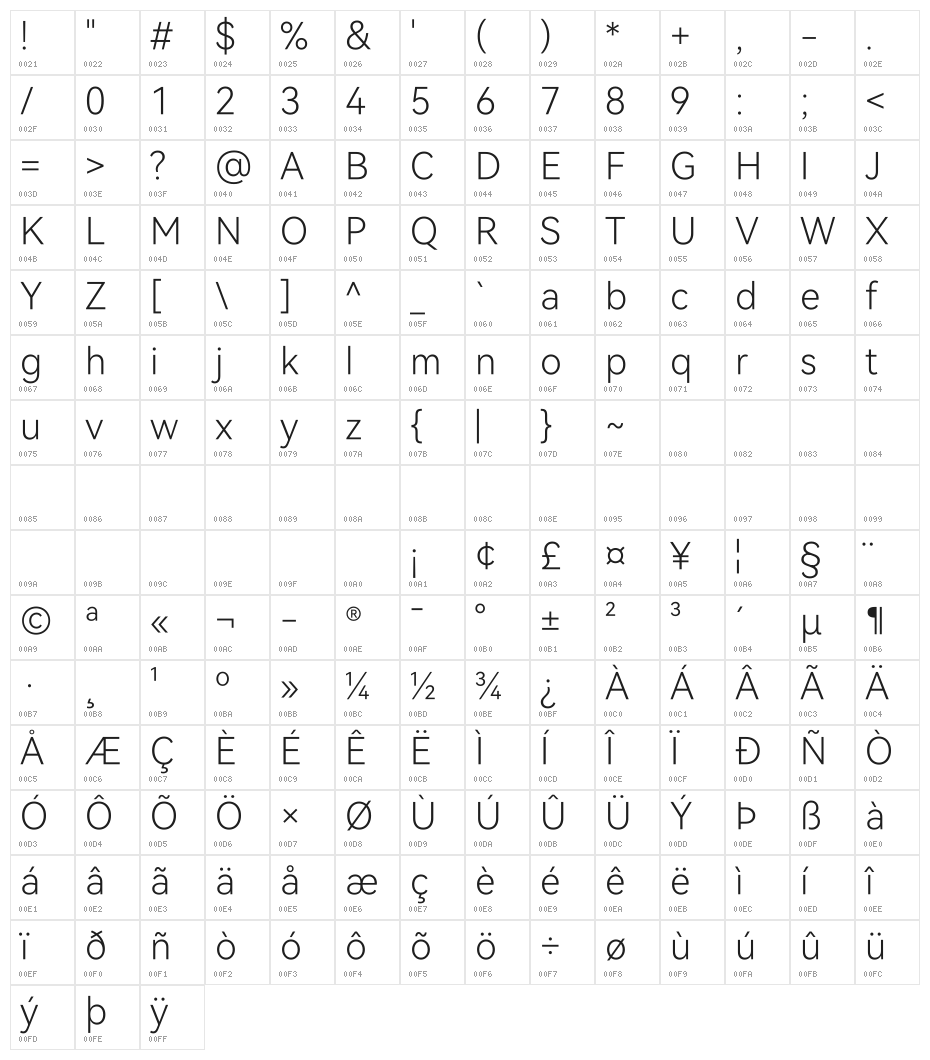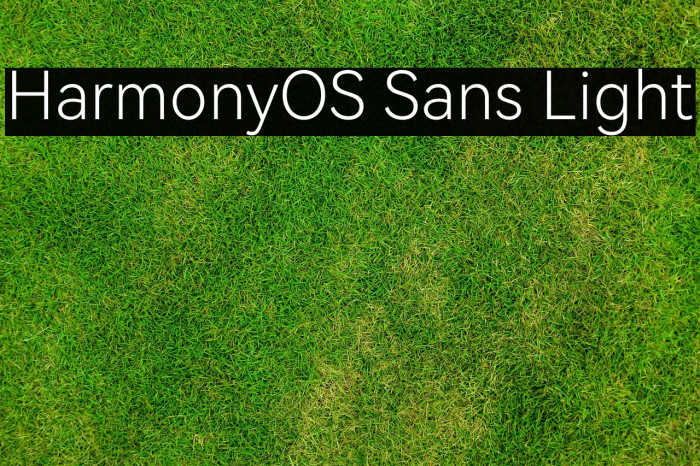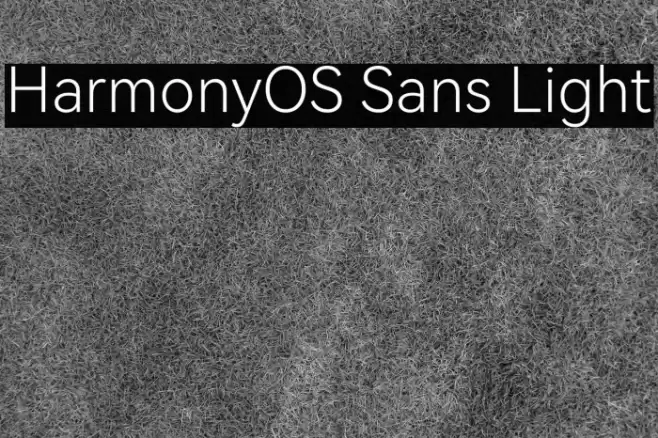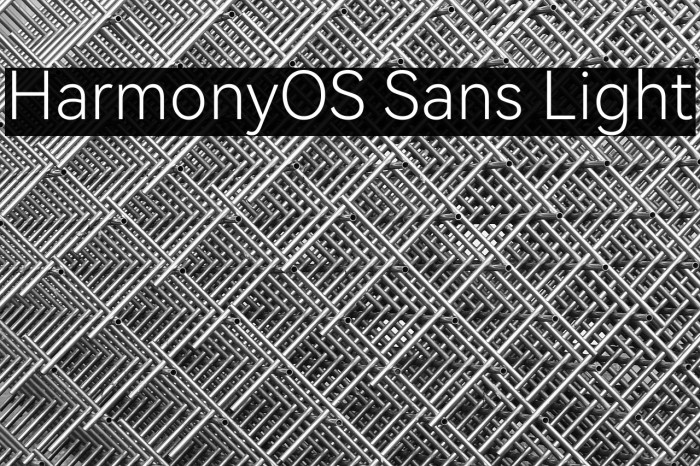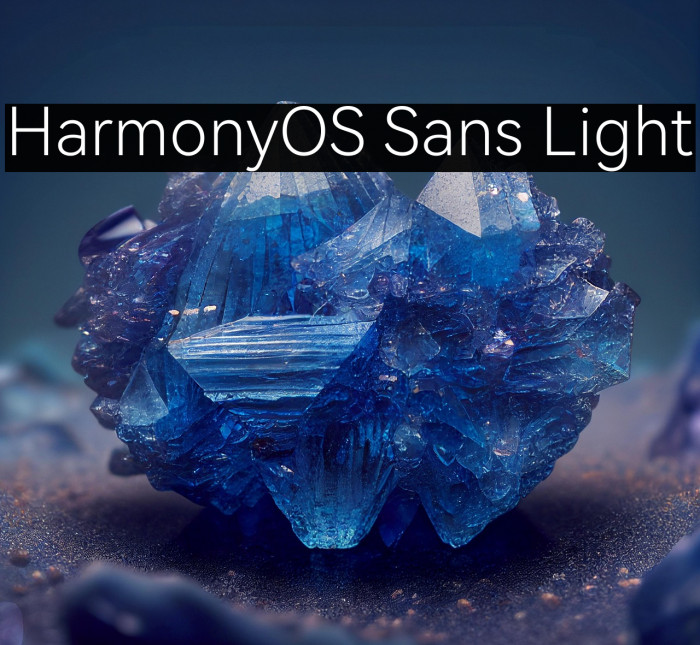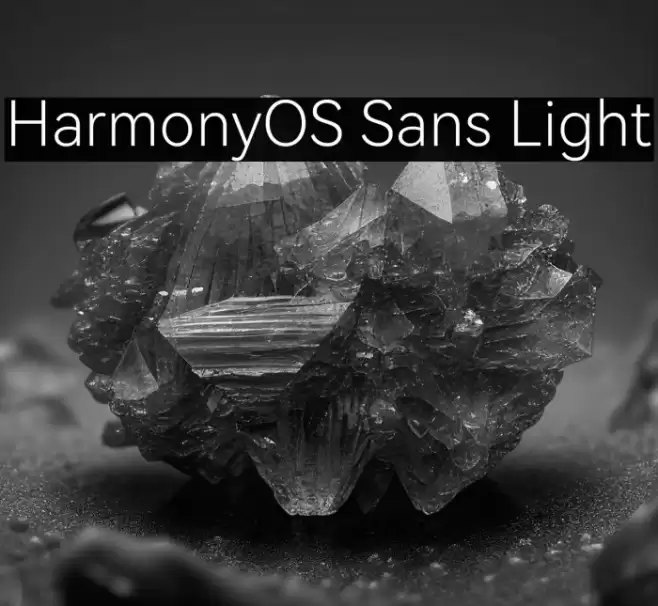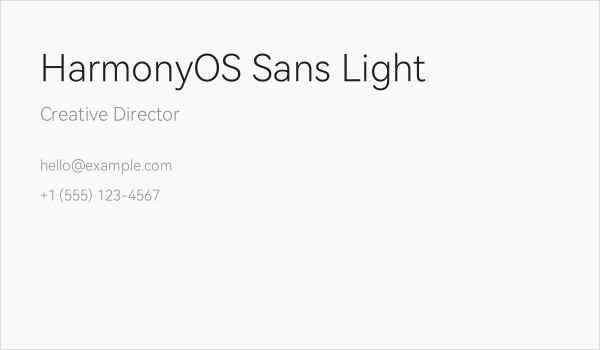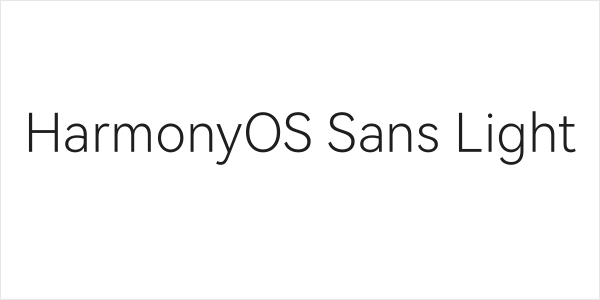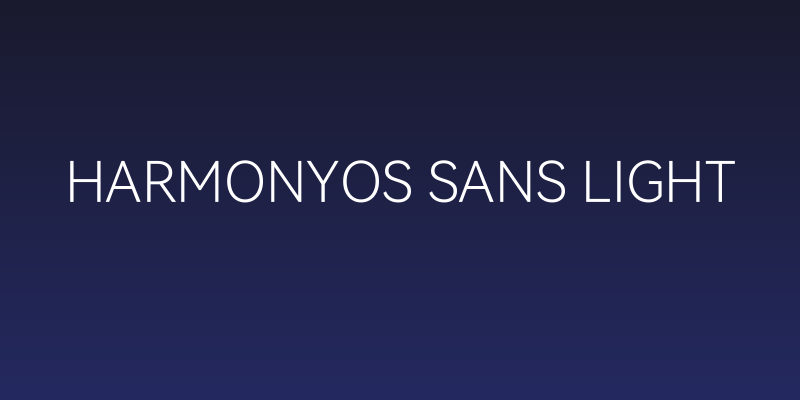
HarmonyOS Sans Light Font
HarmonyOS Sans Light Description
This font features a clean and modern sans-serif style, characterized by its light weight and minimalistic design. The characters are evenly spaced with a normal width, providing excellent readability. The strokes are consistent and smooth, with low contrast, making it ideal for digital interfaces and print media. Its simplicity and elegance make it versatile for various design projects, from user interfaces to corporate branding.
| Proposed Projects | Ideal for user interfaces, websites, corporate branding, and print media. |